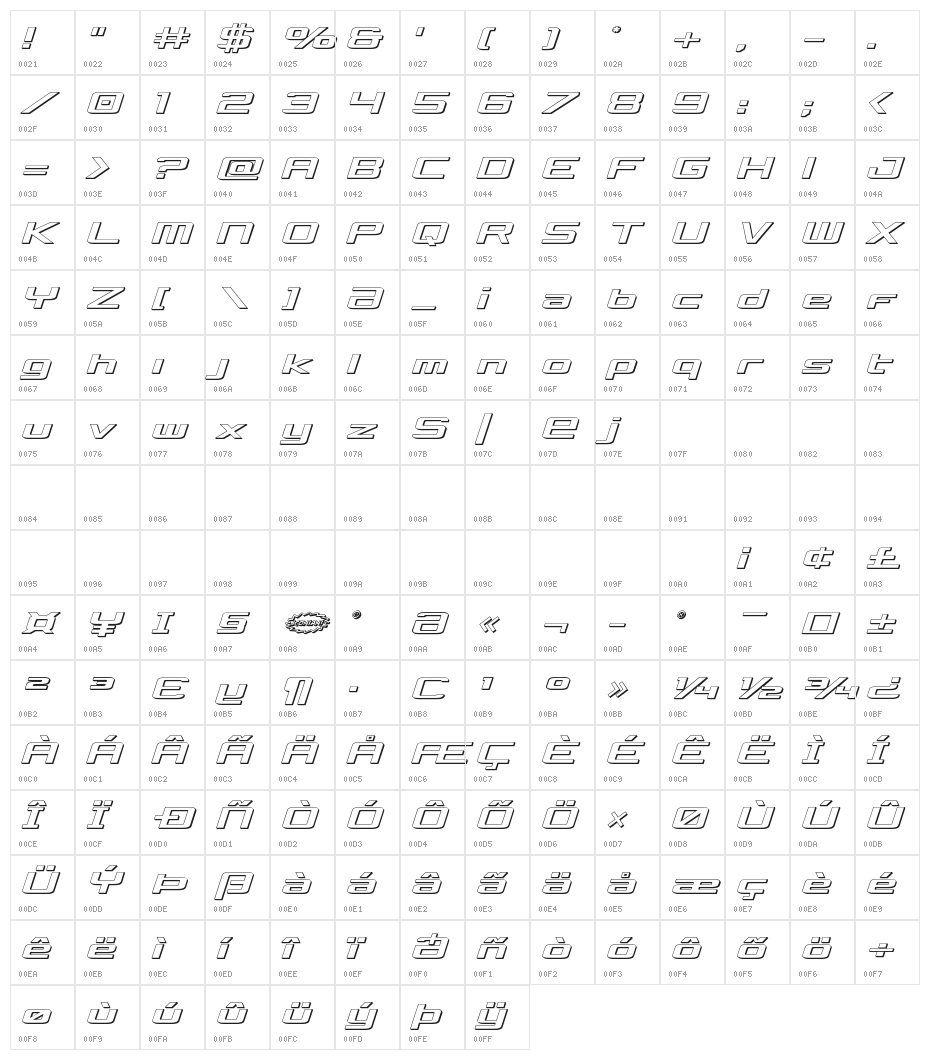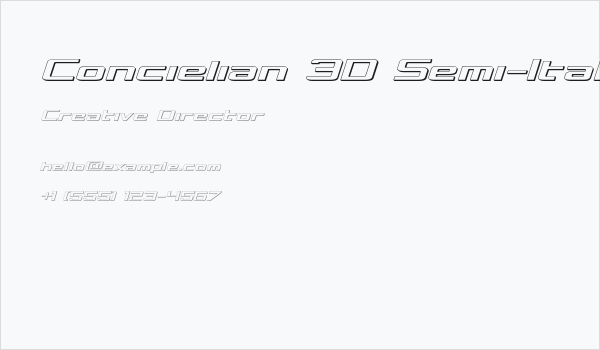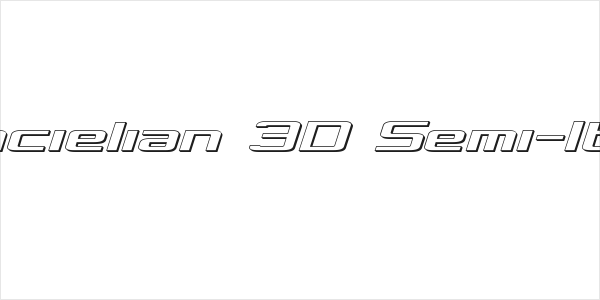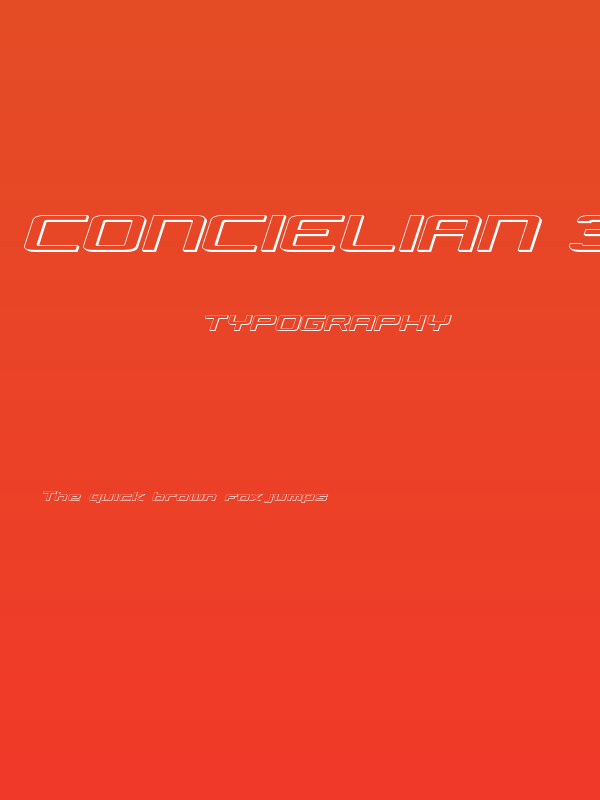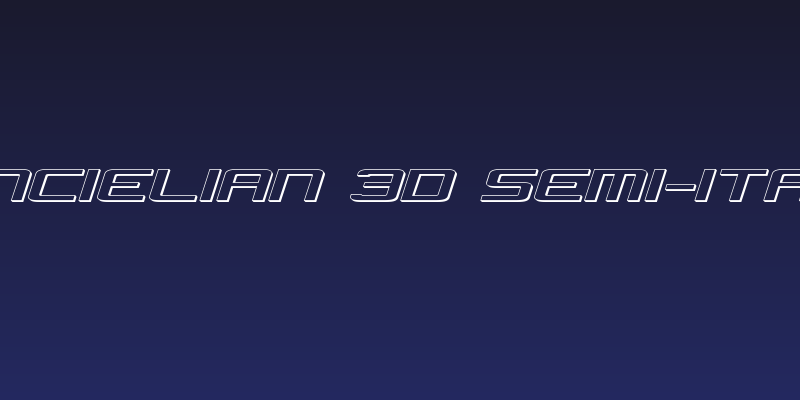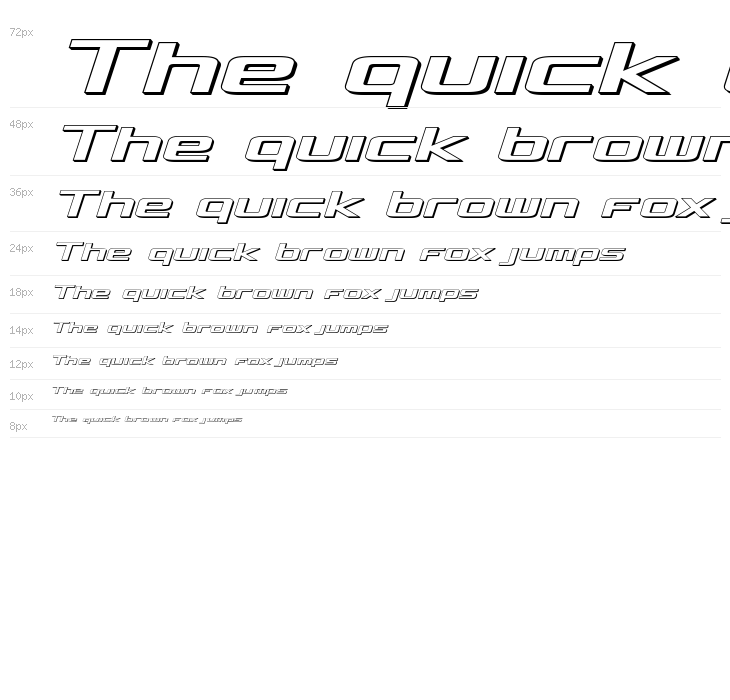
Concielian 3D Semi-Italic Font
Concielian 3D Semi-Italic Description
This font features a distinct 3D effect with semi-italic styling, giving it a dynamic and futuristic appearance. The characters are outlined, creating a hollow effect that adds depth and dimension. The uppercase and lowercase letters maintain a consistent style, with angular edges and a slight slant that enhances the italicized look. The numerals and special characters follow the same design principles, ensuring uniformity across all glyphs. This font's unique structure makes it stand out, ideal for projects that require a modern and eye-catching typeface.
Proposed ProjectsIdeal for video game titles, tech branding, futuristic posters, and sci-fi themed designs.